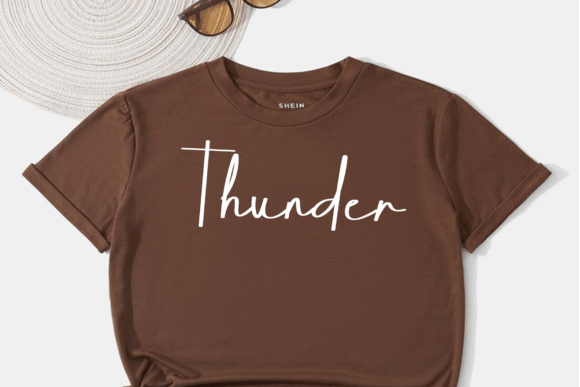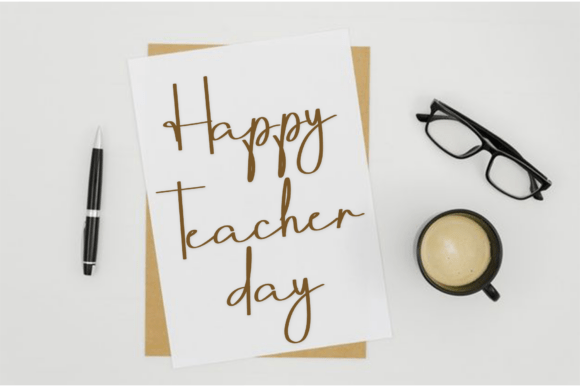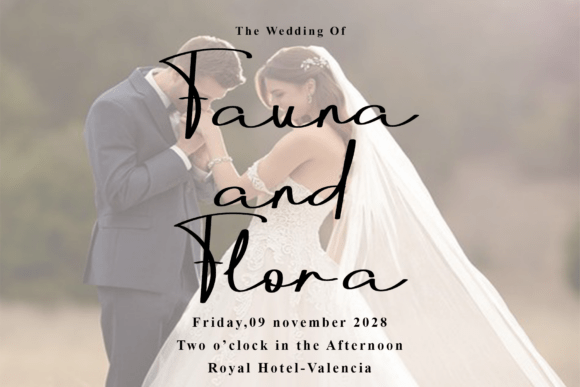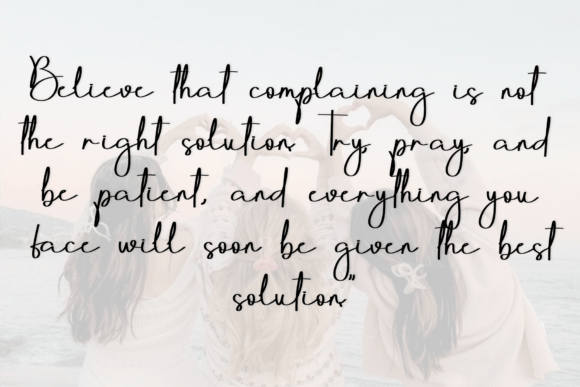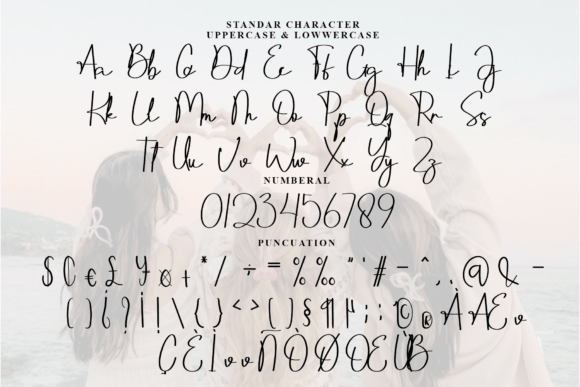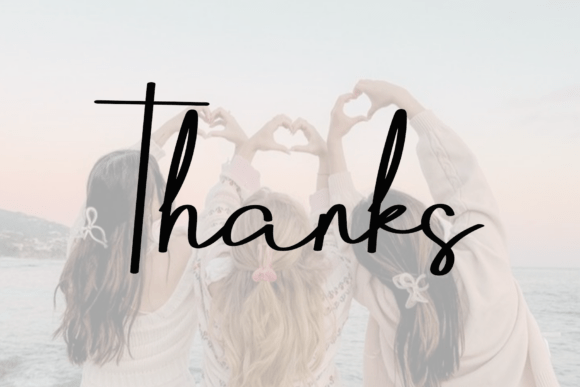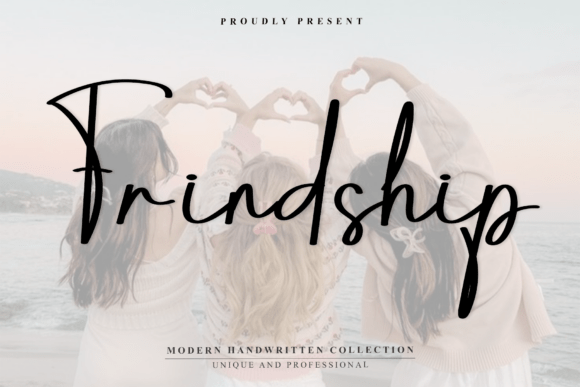
Introducing Frindship Font: The Epitome of Modern Minimalism
In the world of typography, few fonts manage to strike a balance between modern minimalism and approachable elegance. Frindship Font is one such exceptional typeface that embodies the perfect blend of sleek, monolinear handwritten style, making it an ideal choice for designers and crafters seeking a professional yet relatable aesthetic.
The Characteristics of Frindship Font
Frindship Font is categorized as a Black Home typeface, distinguished by its tall, slender characters and soft curves. This unique combination lends the font an air of sophistication and refinement, making it an excellent choice for various design applications, including interior design branding, real estate logos, and contemporary lifestyle magazines.
Bridging the Gap between Casual and Editorial Design
One of the standout features of Frindship Font is its ability to bridge the gap between casual handwriting and high-end editorial design. This versatility makes it an invaluable asset for designers looking to add a touch of personality to their work without compromising on professionalism. Whether you’re working on product packaging, signature-style watermarks, or elegant website overlays, Frindship Font ensures that your design feels both polished and approachable.
Design Versatility and Pairing Options
The airy and clean nature of Frindship Font means it won’t overwhelm your layout, making it perfect for a wide range of design projects. To maximize its impact, consider pairing Frindship Font with a bold sans-serif typeface. This dynamic contrast creates a unique and professional visual identity that is sure to elevate your design work. The versatility of Frindship Font makes it a valuable tool for designers across various disciplines, from graphic design and branding to editorial design and crafting.
Ideal Applications for Frindship Font
Frindship Font’s unique blend of elegance and approachability makes it suitable for a variety of applications, including:
- Personal Branding: Establish a professional yet personal visual identity with Frindship Font, perfect for creatives, entrepreneurs, and small business owners.
- Photography Watermarks: Add a touch of elegance to your photography with custom watermarks that exude sophistication and style.
- Luxury Wedding Stationery: Elevate your wedding design with Frindship Font’s refined and polished aesthetic, perfect for luxury wedding invitations, programs, and more.
- Editorial Design: Use Frindship Font to add a human touch to your editorial design projects, from magazine layouts to book covers.
- Product Packaging: Stand out in the market with elegant and sophisticated product packaging that showcases your brand’s personality.
Why Choose Frindship Font?
For designers and crafters seeking a typeface that embodies modern minimalism while offering a human touch, Frindship Font is an exceptional choice. Its unique characteristics, versatility, and pairing options make it an invaluable asset for anyone looking to elevate their design work. With Frindship Font, you can:
- Create a professional yet approachable visual identity for your brand or project.
- Add a touch of elegance and sophistication to your design work.
- Experiment with dynamic contrasts by pairing Frindship Font with bold sans-serif typefaces.
- Apply the font across various design disciplines, from branding and editorial design to packaging and crafting.
Frindship Font stands out in the world of typography as a beacon of modern minimalism, offering designers and crafters a unique tool to enhance their work. Its sleek, monolinear handwritten style, combined with its versatility and elegance, makes it an ideal choice for a wide range of design applications. Whether you’re looking to establish a professional brand identity, create stunning editorial designs, or simply add a touch of sophistication to your craft projects, Frindship Font is sure to exceed your expectations.